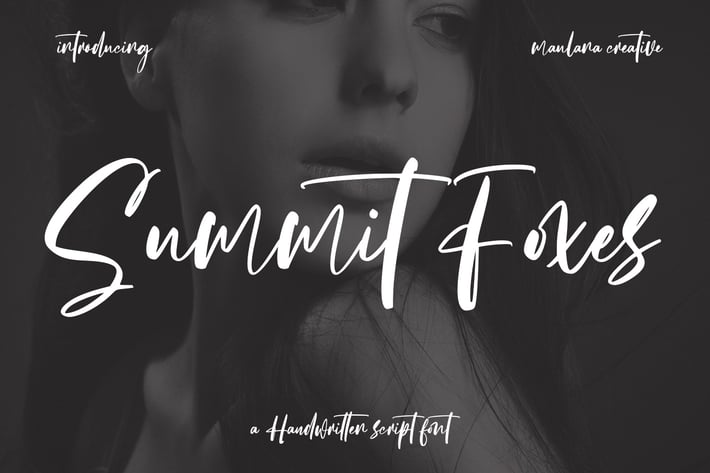
Summit Foxes Script Font
Summit Foxes is an expressive handwritten script font. With high contrast stroke, fun character with a bit of ligatures and alternates. To give you an extra creative work. Summit Foxes font support multilingual more than 100+ language. This font is good for logo design, Social media, Movie Titles, Books Titles, a short text even a long text letter and good for your secondary text font with sans or serif. Make a stunning work with Summit Foxes font.